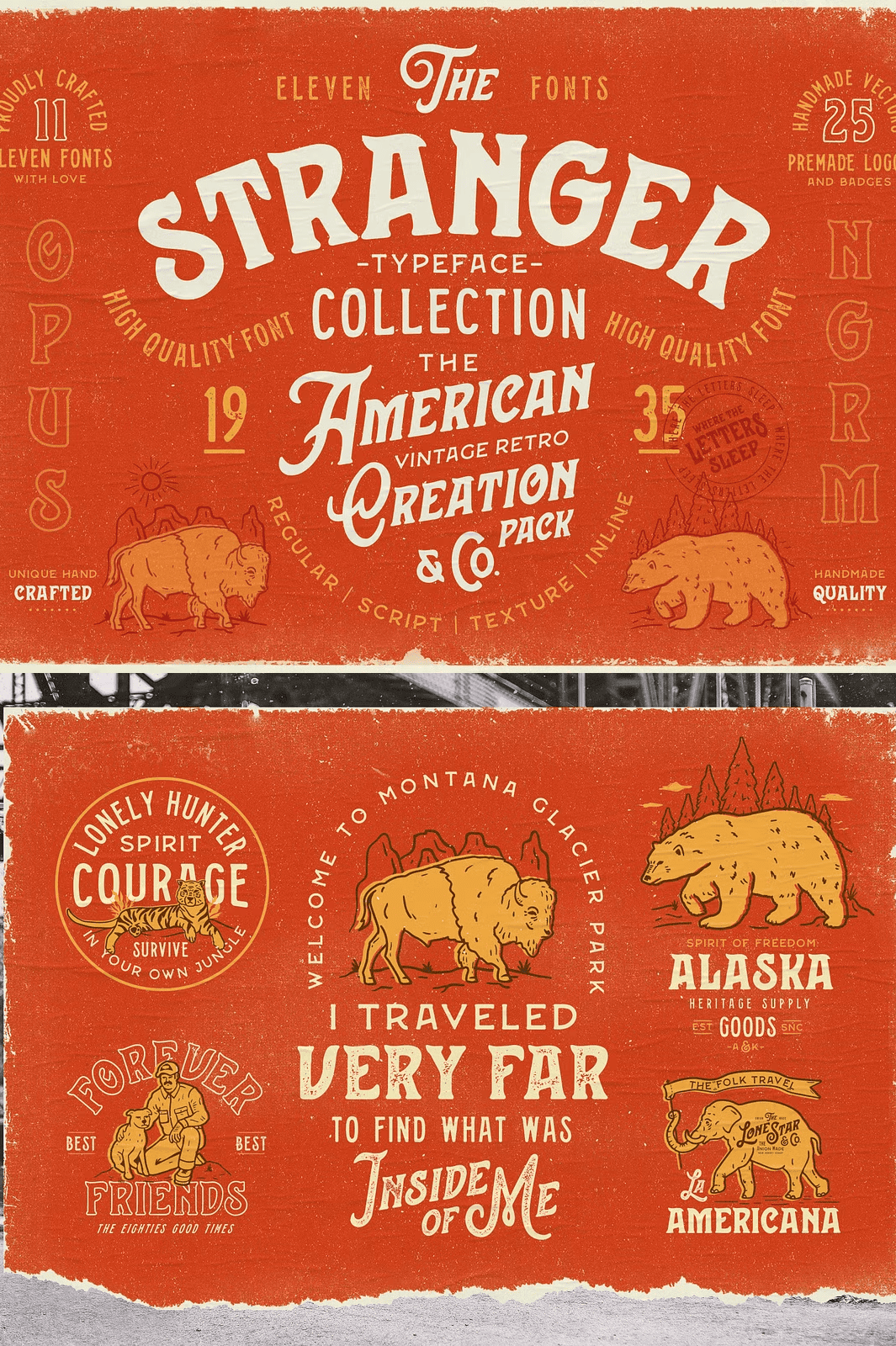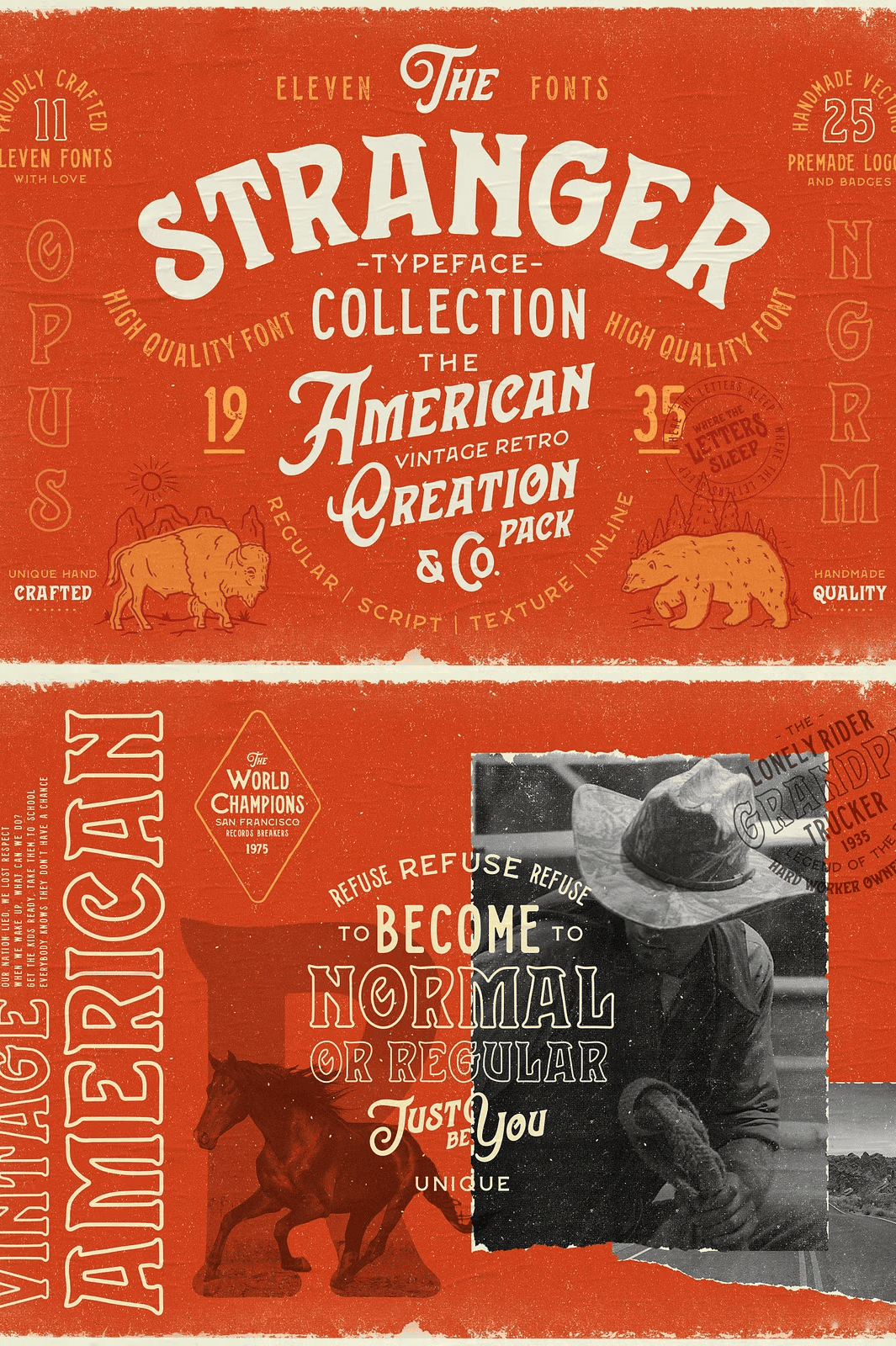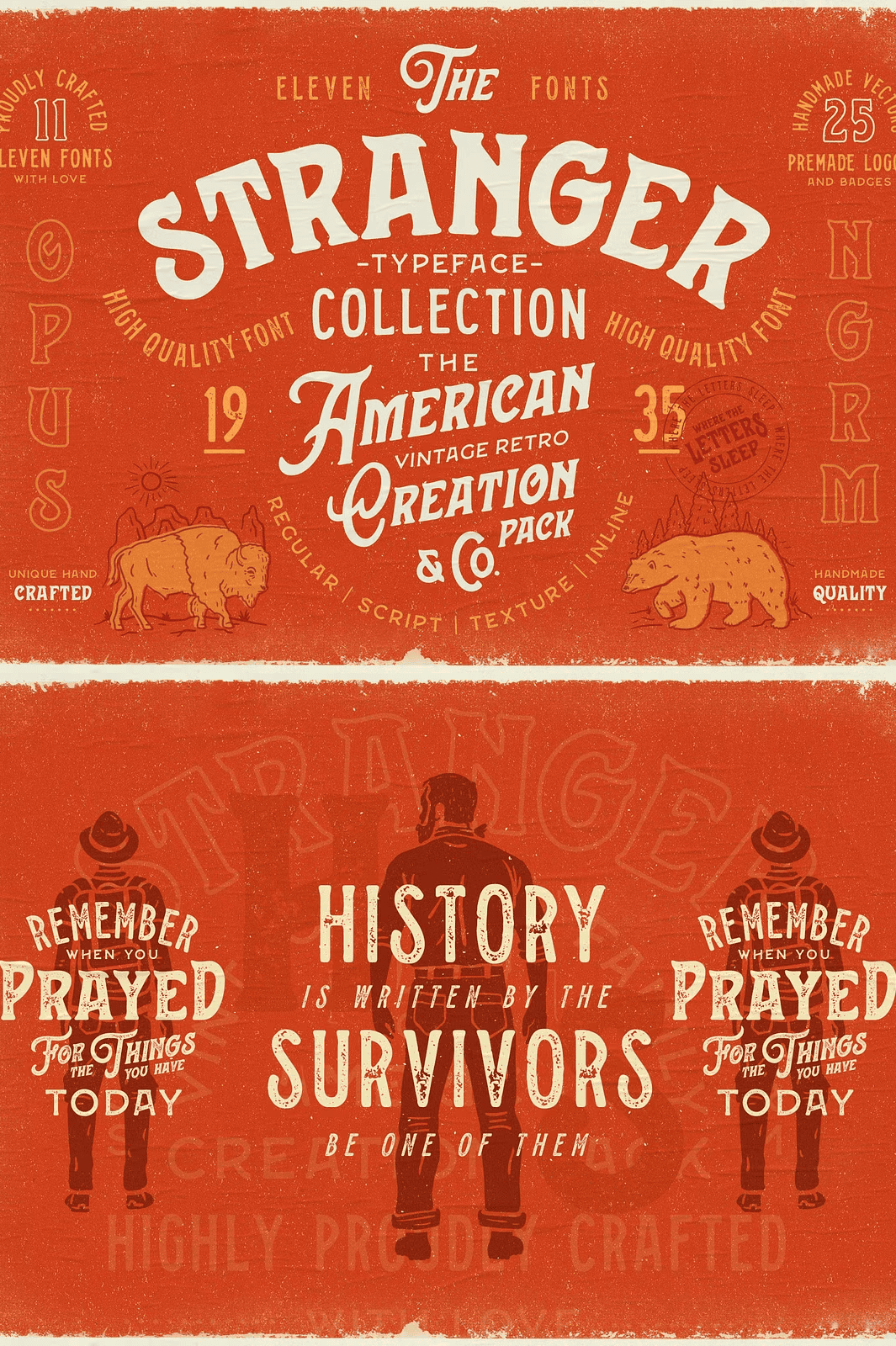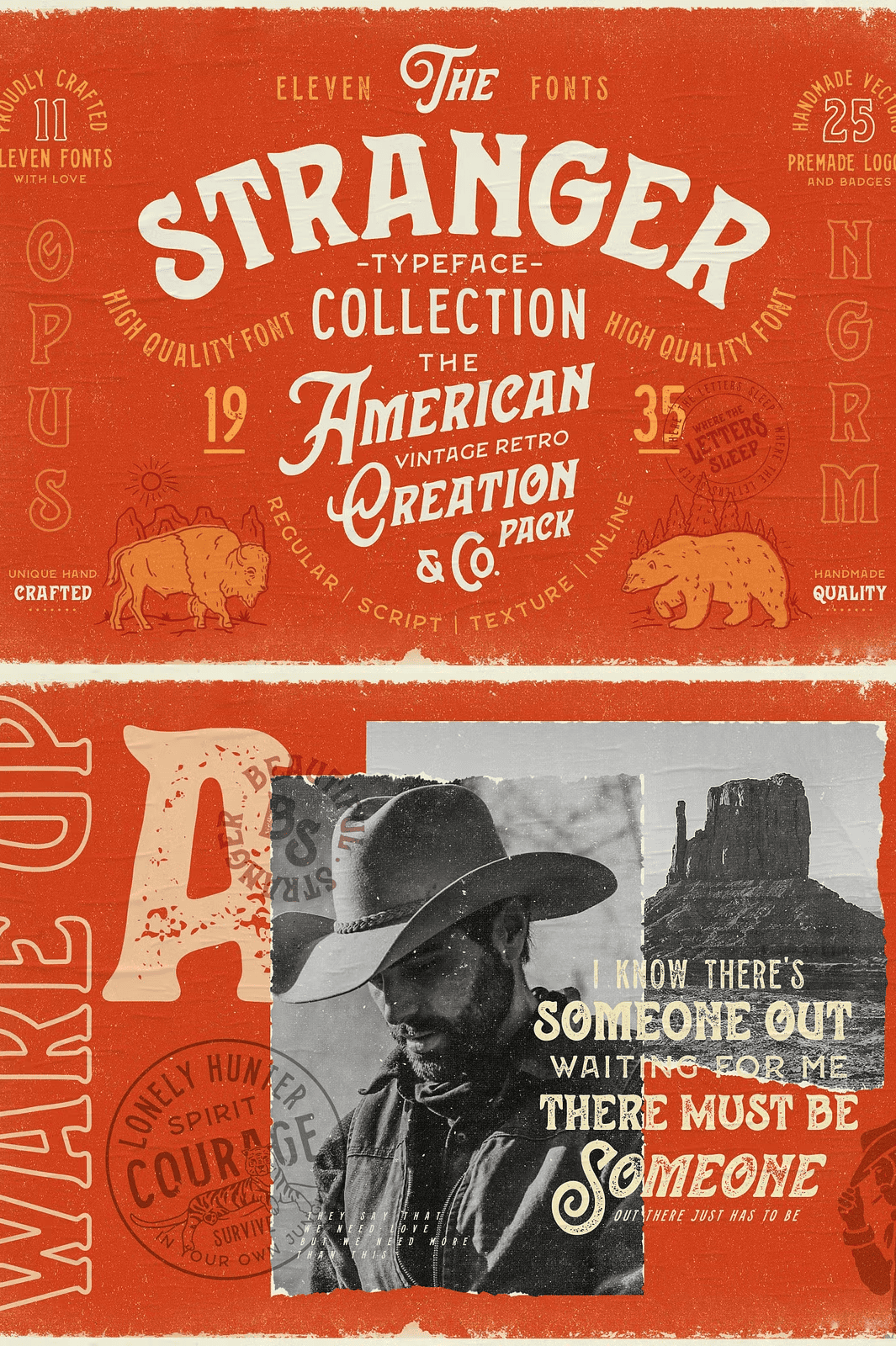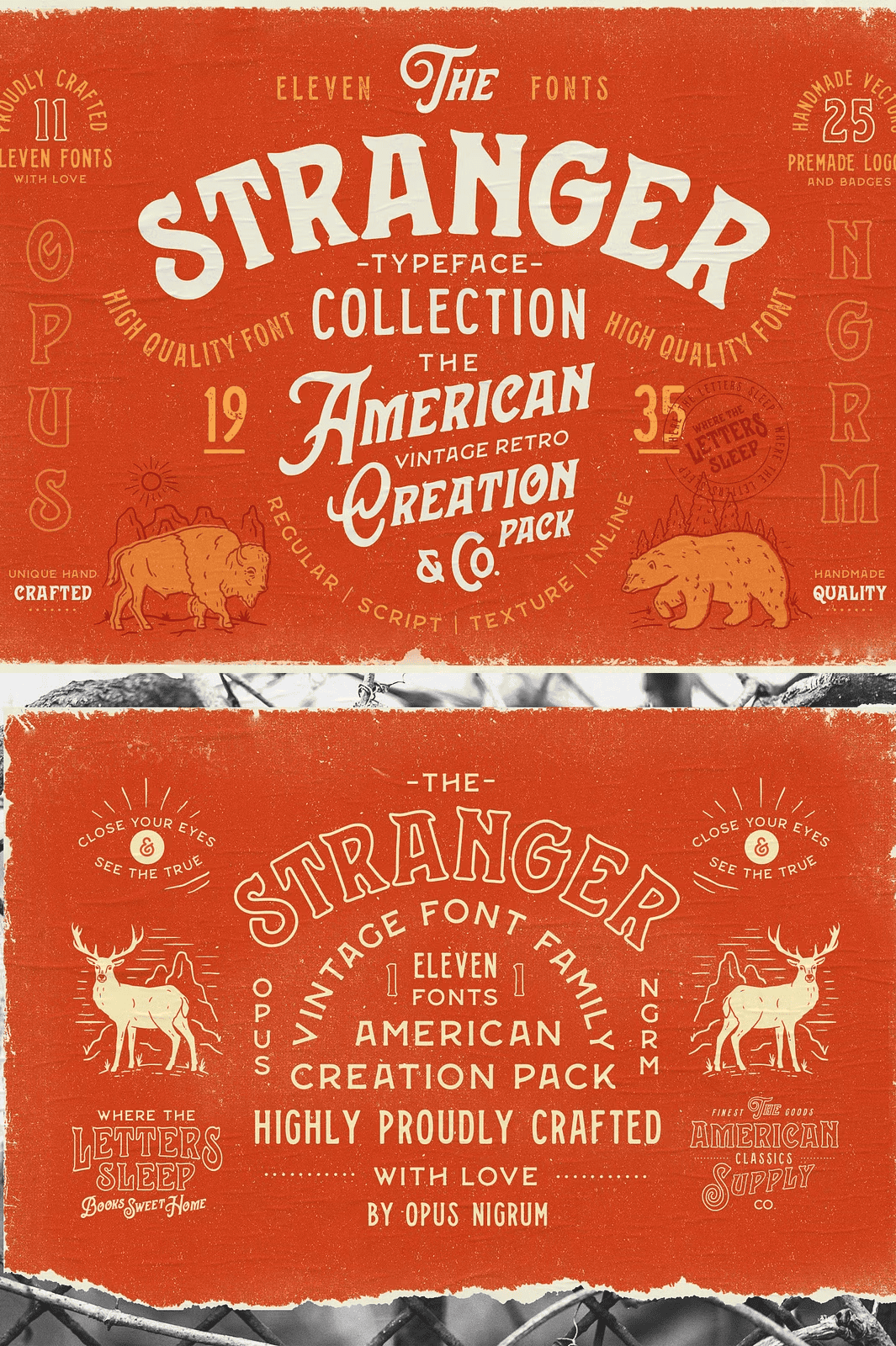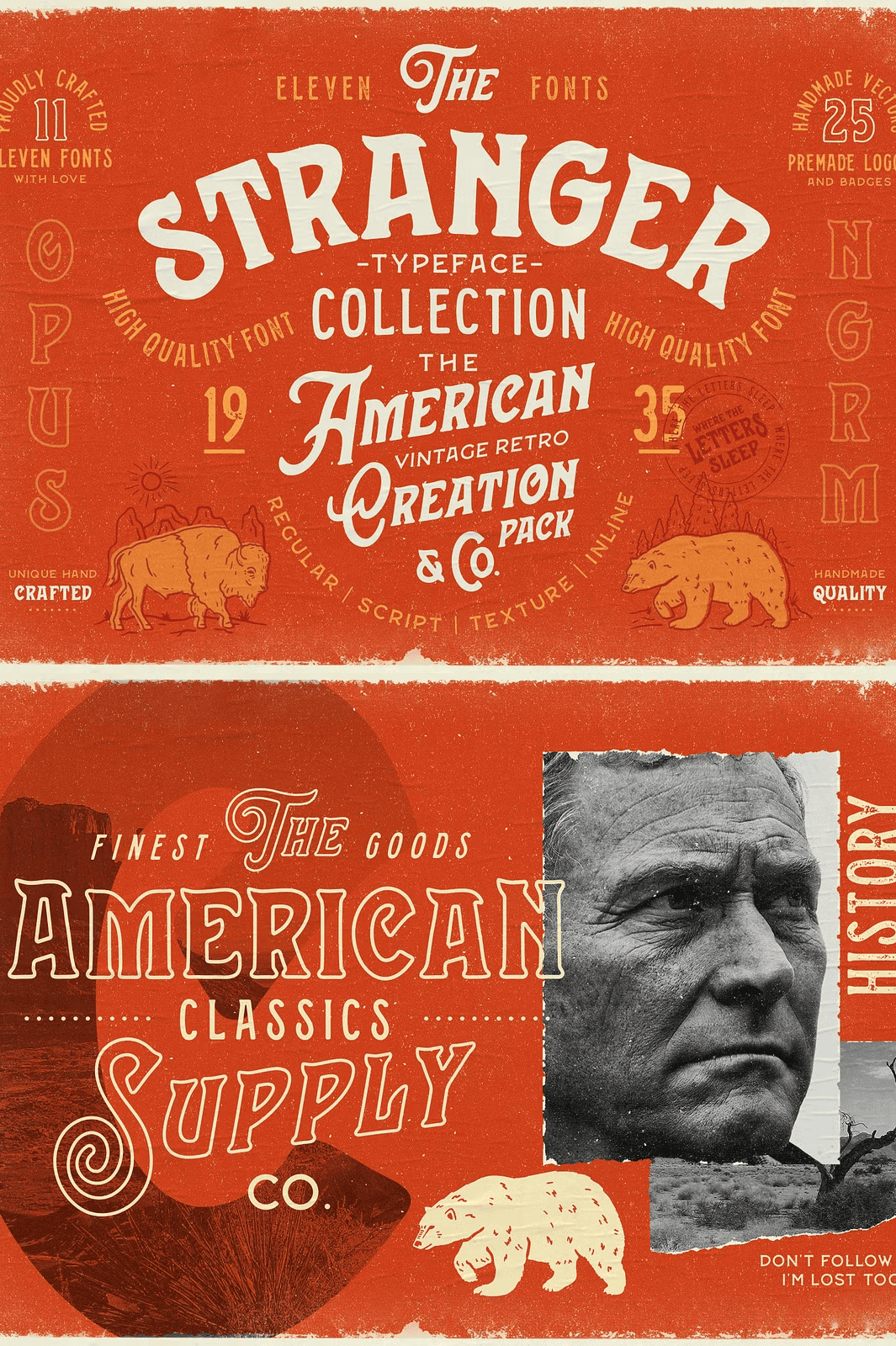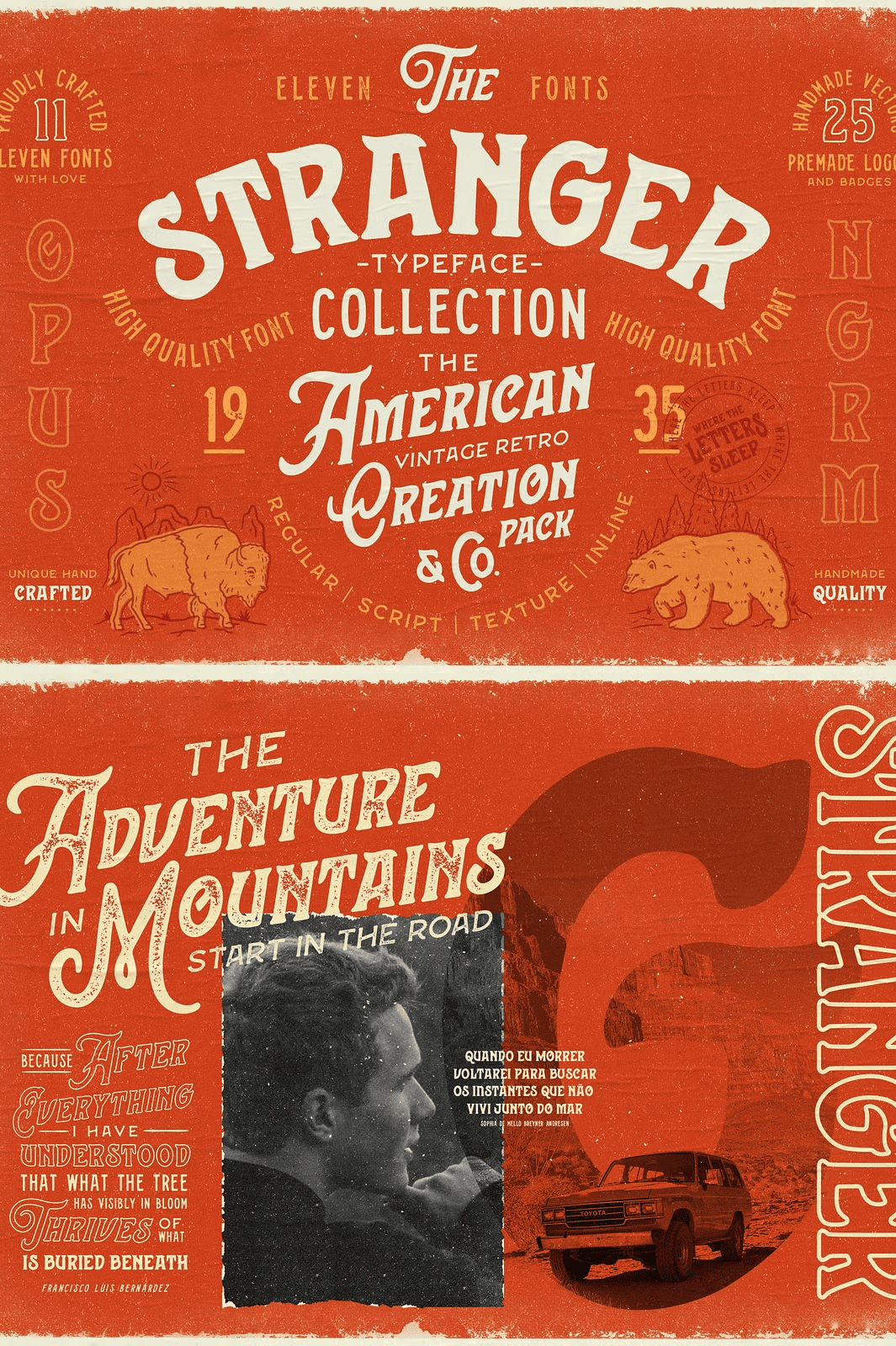
Stranger Font Collection + Extras
A Bold Typeface Collection Born From Bohemian Alchemist’s Legacy
The **Stranger Font Collection** emerges as a dynamic evolution of the Bohemian Alchemist style, bringing a fresh yet nostalgic vibe. This powerful collection takes its inspiration from vintage denim labels, timeless old jeans advertisements, the rugged aesthetics of the old west, and the mysterious ambiance of apothecary design elements. It is a font family that uniquely balances a classic vintage spirit with modern solidity, resulting in a versatile typeface set full of personality.
This collection is designed for creatives who want striking fonts that can craft compelling visuals for logos, flyers, invitations, product labels, clothing designs, and more. Whether you are a graphic designer, a branding expert, or an enthusiast looking to create wildly original outputs, Stranger offers dependable style with authentic heritage.
Explore the Complete Stranger Font Family and Its Useful Variants
Stranger Font Collection includes a rich variety of styles to fulfill diverse design needs:
Each style pairs perfectly within the family, allowing you to mix and match to achieve complex, layered typographic designs. In addition to the font files, the package includes full multilingual support enabling your projects to reach broader global audiences without limitations.
The Stranger Font Collection is employed by talented designers across the globe and has secured a spot in the official merchandise for the globally acclaimed “Stranger Things 4” series. This endorsement further solidifies its reputation as not only a versatile but also a culturally relevant font choice.
Unlock unlimited vintage and old west design possibilities with the Stranger Font Collection. Its range of styles, multilingual capabilities, and professional-grade extras make it an essential tool for contemporary branding and design projects that require genuine character and artisan flair.